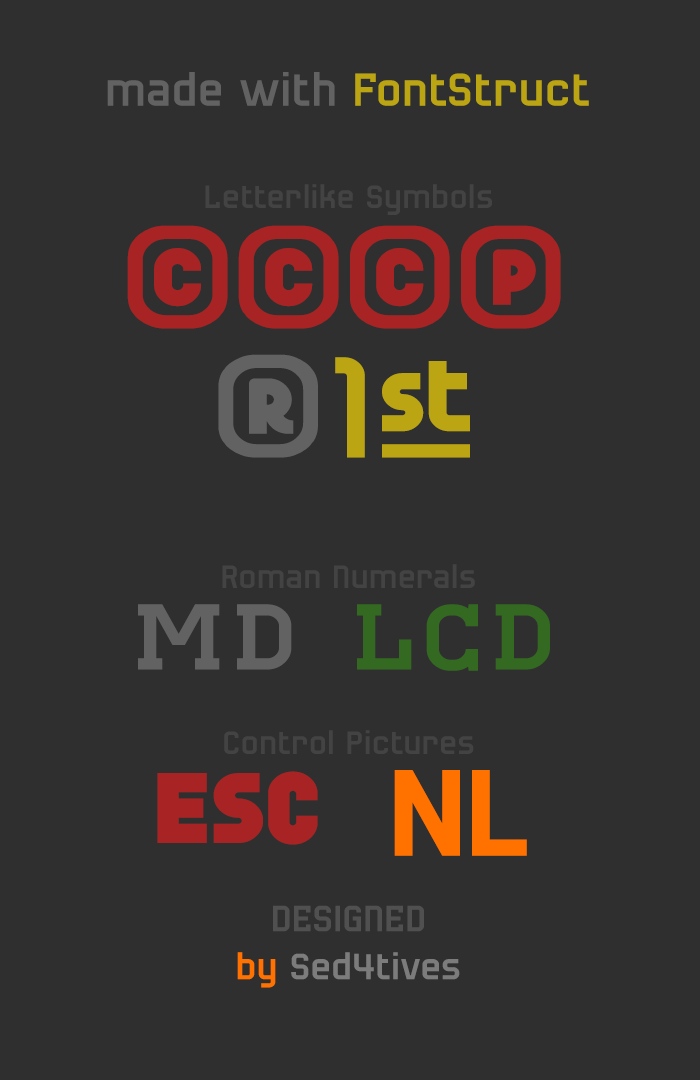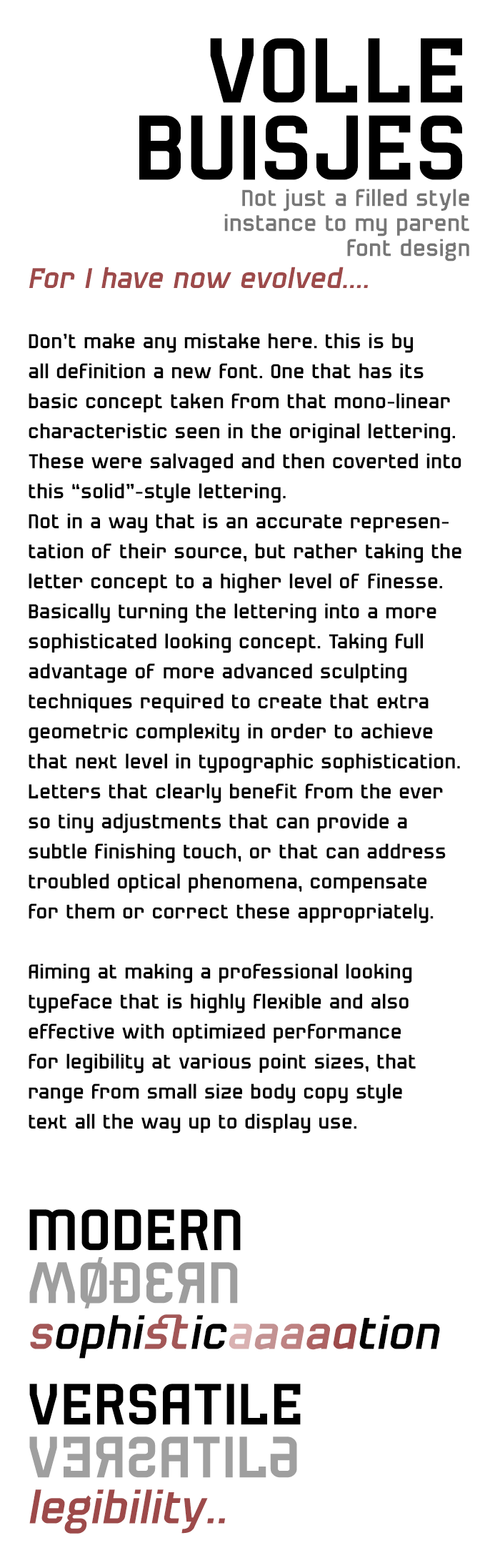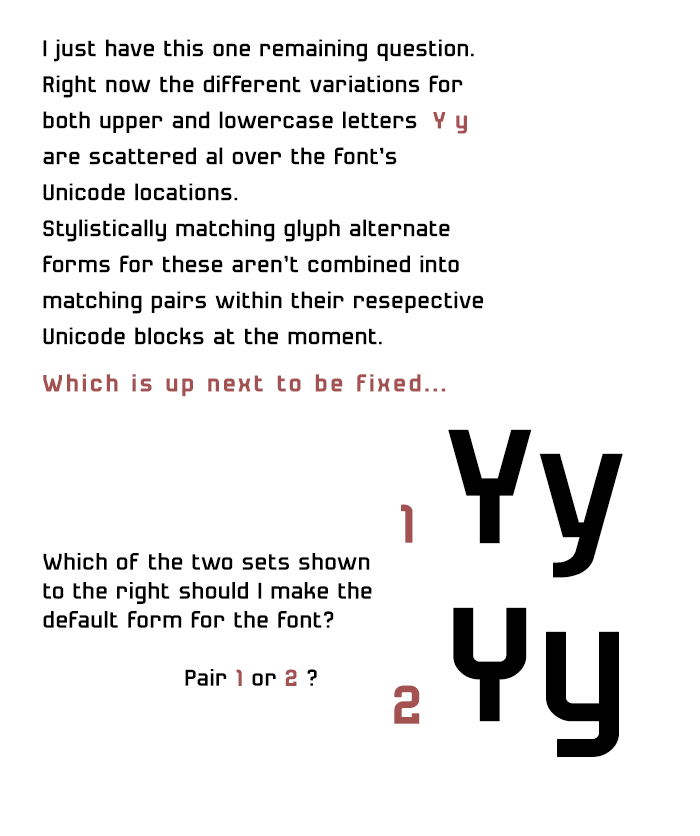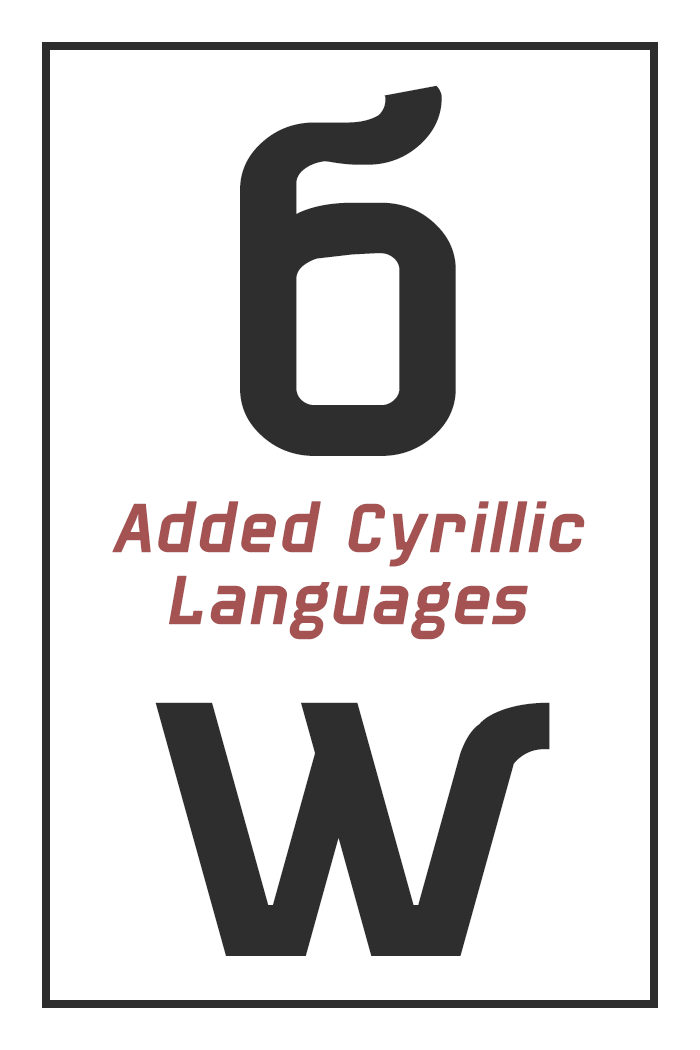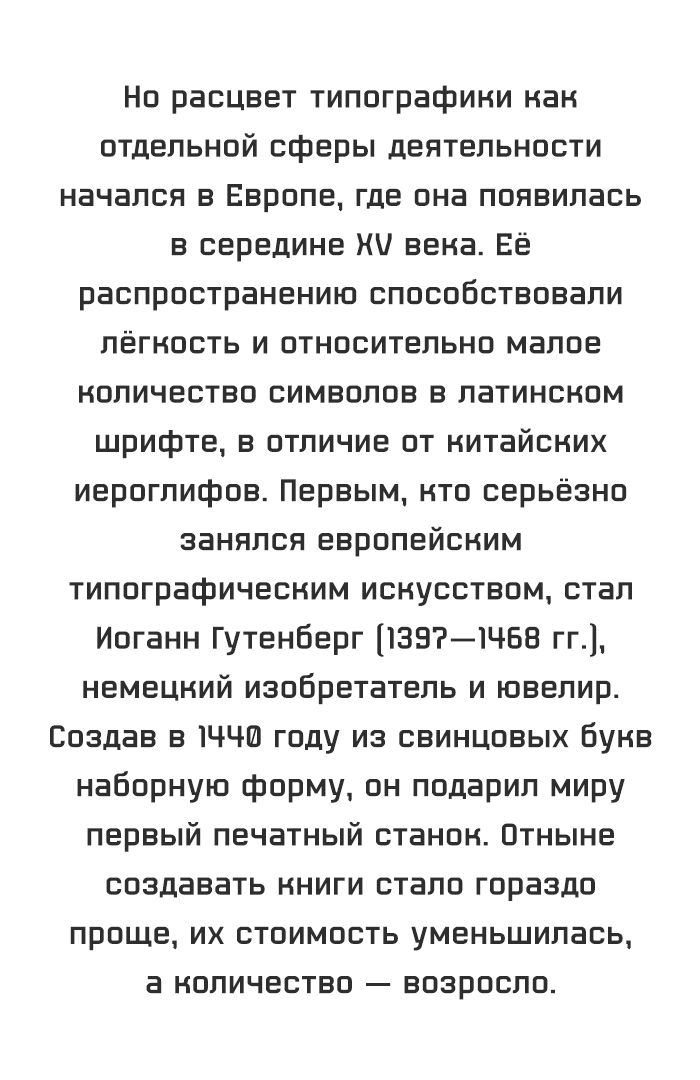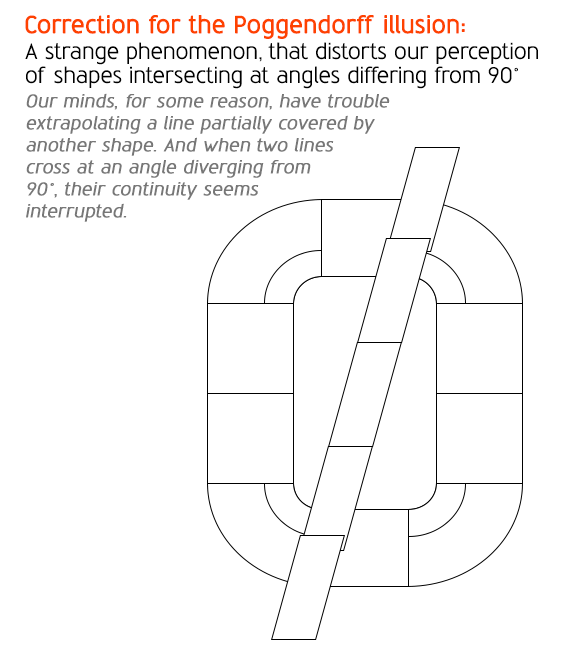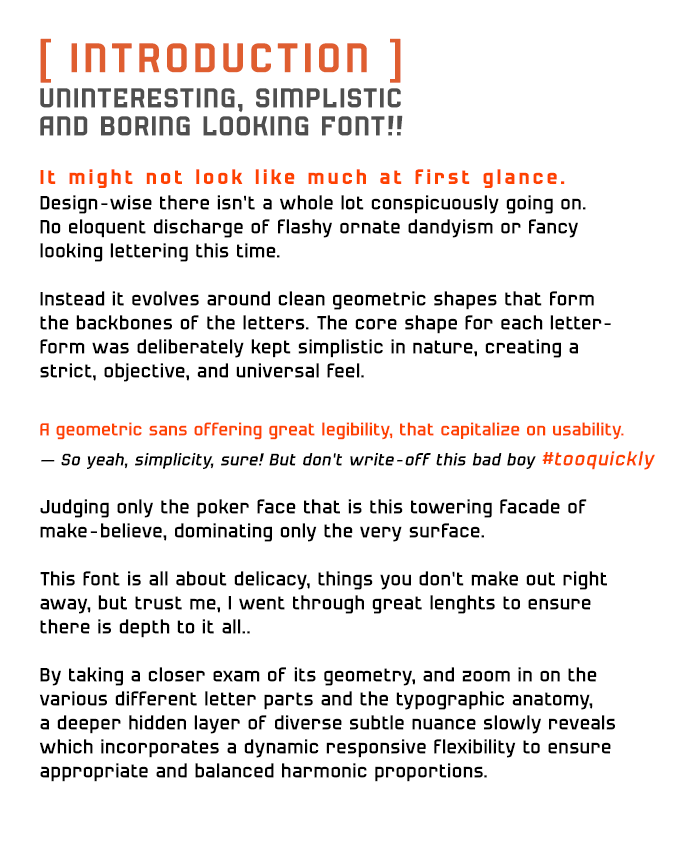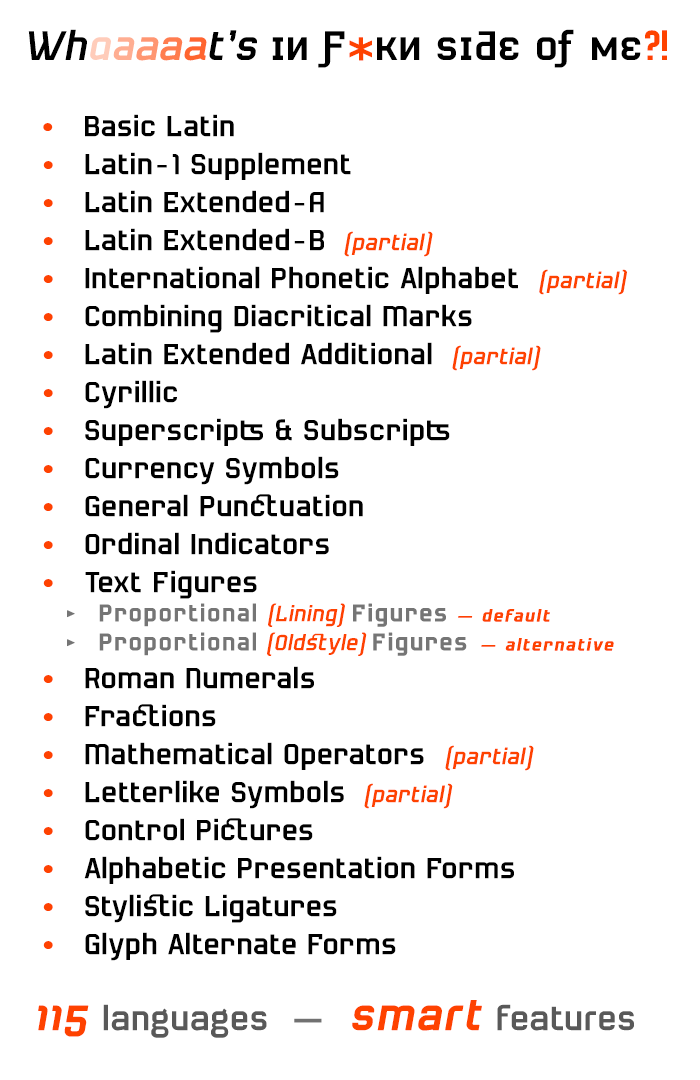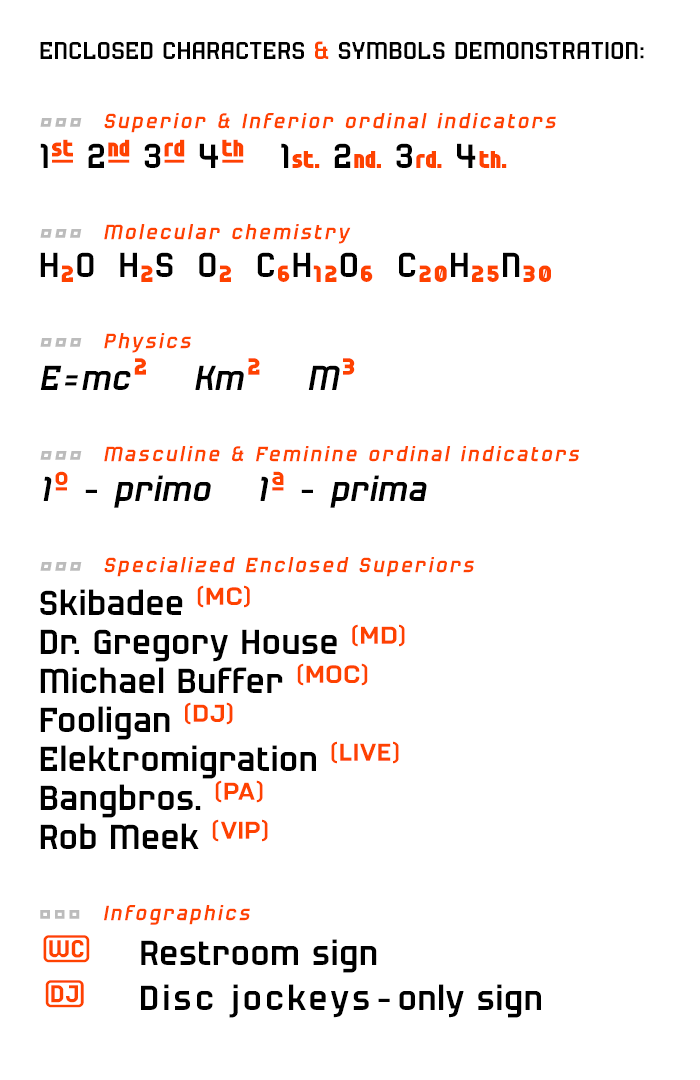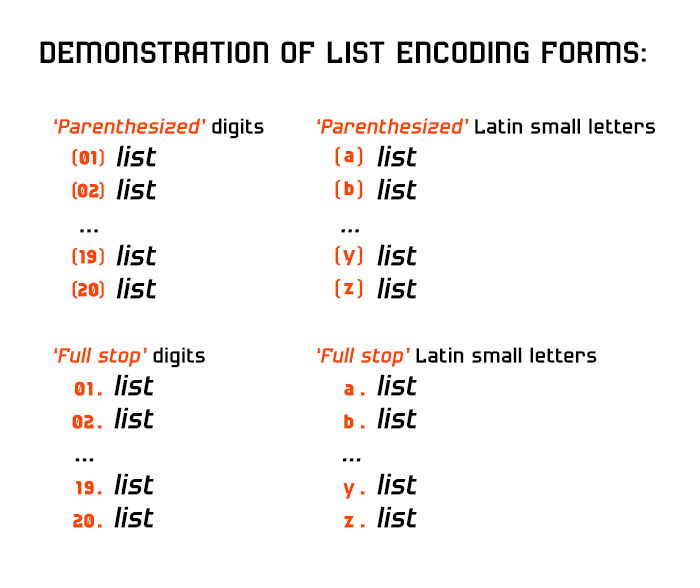
VOLLE BUISJES — Geometric sans-serif style
[ INTRODUCTION ]
This font had derived and materialized from my previous FontStruction called Buisjes, and had innitially been planned to be made into this “solid”-style instance that would've then were to be combined and included to the original master font. That idea was later canceled when I decided not to make this part of the “Buisjes”-typeface.
I still went on completed it though, but I was now simply treating it as this unrelated new font instead.
The original “outlined”-variant still stood testimony in this second stage of development, as it served as the global basic backbone for this. But, since it now no longer was bound by accurate representation I could start utilize more dynamic sculpting techniques and make minute adjustments that incnclude some optical corrections, as well as implementing a slight more polished looking geometry.
[ TECHNICAL BACKGROUND ]
I took a clone from “Buisjes” and started modifing it into this new solid style. What I basically did was utilizing the “brick swap”-method in the FS-editor to replace every brick inside the font's “My Bricks”-palette. By doing so, essentially converting the font one-brick-at-a-time into this 1 : 1 conversion of its source without making any additional changes to the actual glyph-contours.
After a while due to some undesirable result that came from replacing the original bricks the design took a different turn when I started realizing that making an exact 1 : 1 conversion into this solid style wouldn't generate the most desirable looking font. This new solid version that was rendered from the “brick swap”-process seemed to have several optical complications, that when compared to the original outline version, had quite the different effect on its physical properties as well as the aesthetic quality of the letterforms, and had far less visual appeal. These newly presented optical misfortune also had a direct negative effect on the font's legibility. In oder to gain a better understanding as to why it took a toll on legibility some additional thing needs to be explained first, to make sense of it all later. This explains in short the visual effect of added contrast that comes from that “bi-linear”-characteristic nature of the outline version, which employs so much more emphasis to the font's overall geometric properties of various form, and therefor to the contour shape of a glyph. In return this has a direct impact on the overall effectiveness of these forms.
The reduction of this additional contrast within the font's “positive vs. negative”-whitespace balance for the solid version results in a letterform that has a rather weak representation of its several typographic components as well as for each of the individual letter-parts that form a whole, which also help to distinguish one letter from another. In simple words this means that a solid style lacks a lot of that emphasis that is present in the the original outline version, and makes for a far less pleasant and effective font.
Another issue I had with the 1 : 1 identical conversion was the unanticipated but pretty drastic deterioration of its initial “wow”-factor in the solid version that was generated. No longer beneficiary from additional added value that came with a more “decorative”-characteristic that is present within a outlined glyph contour. Also the “bi-linear”-nature of the outlined letters sort of gave the impression it was putting double the emphasis to the typographic parts and the geometric properties that make up each letterform. The rather squarish “box”-like characteristics of the lettering became much more evident in the solid glyph face. Shifting visual focus from the previously more ornate display attraction away towards this more “mechanical”-style that is this rather plain and somewhat shallow looking flat faced letter.
All of these were things that worked out just fine in the font's outlined version, but not so much in terms of a solid “filled”-like style.
Here are some of the things that cause trouble within an exact 1 : 1 conversion into solid bricks:
• Enclosed typographic elements render much thicker than what is considered “acceptable”
(requires optical correction)
• Diacritics render too thick and often too big
(requires a complete re-design)
• Radius of FontStruct's default solid circle arc connection brick is too small
‣ Making a solid font constructed from these to look compressed
‣ Arc intersection point not sitting deep enough
• Reduced emphasis in depth of geometric form
‣ Simple rather “feature-less” and “squarish”-looking geometry
(both requires numerous custom composite bricks in order to break-away from these constraints)
— The combination of the above in terms of the appropriate adjustments required to make optical corrections in order for it to have balanced proportions will have such significant impact to certain aspects of the physical presentation of the letterforms that they no longer share that seamless overlapping cohesion, and it couldn't really classify any longer as being this solid / filled style instance to the original master font.
What a complete and extensive set of characters! Excellent font and very useful, pal! Days of hard work here, I know. 11/10
And also a lot of subtle details. Great.
@elmoyenique: Thanks a lot for the careful observations concerning to the many subtleties that were put into the design. Thanks a lot for the ever kind words of yours compa, much appreciated!
You should make the first pair the default forms…
Cyrillic in action.
The diacritic on Ѐ is missing, and the diacritic on ѓ appears to be wrong. The cyrillic letterforms work pretty well. I wonder if you plan on adding a serbian form of б, as well as Greek? 10 out of 10
Corrected accents in Cyrillic, thanks for pointing 'm out. The rest I don't know yet. But has to wait to when I get back at PC, I made these small corrections from my mobile device!
Number "0" looks too fat. The dioganal line is nice but it eats up the negative space inside and that makes the number feel darker and havier